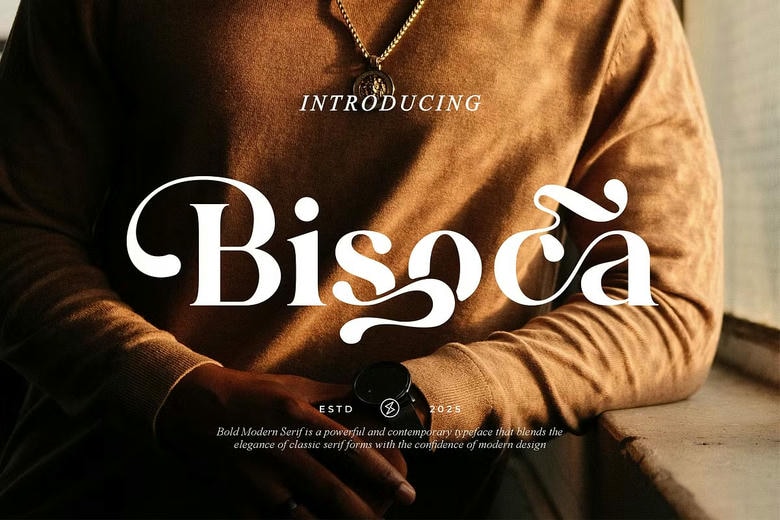
Bisoca Font
Bisoca Serif is a modern and elegant font that’s great for branding and logo design. Its refined style also fits invitations, movie titles, business cards, book covers, brand names, and more.
Bisoca Serif Font